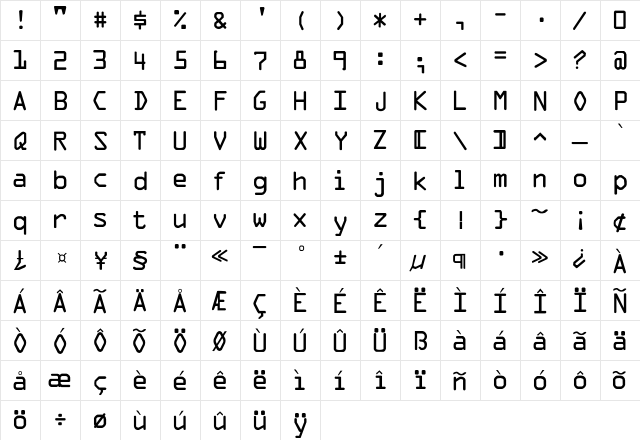
Dolomit Regular
Design Context for Dolomit Typeface
Dolomit offers clean, dependable letterforms without strong stylistic allegiance, making it a practical choice for designers who need flexibility.